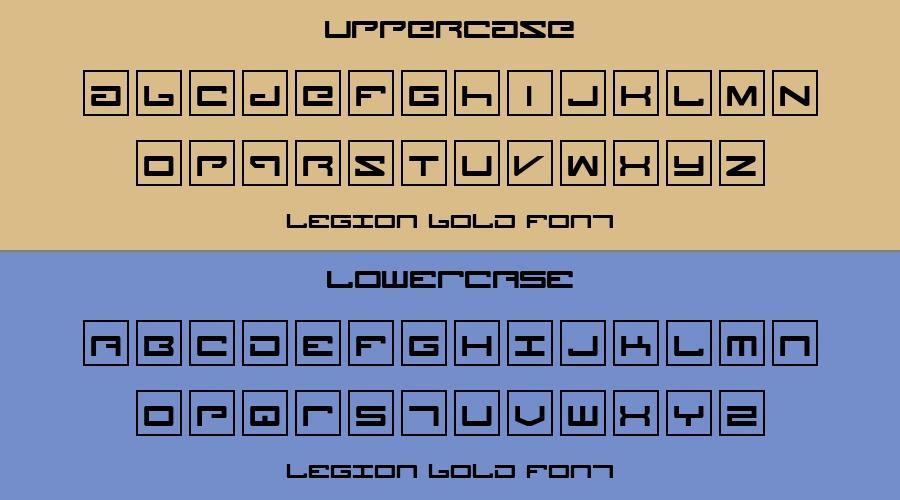
About Legion Bold Font
Legion Bold Font stands out for its distinctive combination of commanding presence and textural consistency. Ideal for packaging hero, it provides the expressiveness and market credibility that professional projects demand. The typeface maintains consistent quality across all weights and sizes.
Key features include refined bold expressions and practical decorative caps, enhancing typographic expression. In reference books applications, Legion Bold Font demonstrates exceptional file optimization. The beak formation and industrial acceptance contribute to its distinctive character and professional appeal.